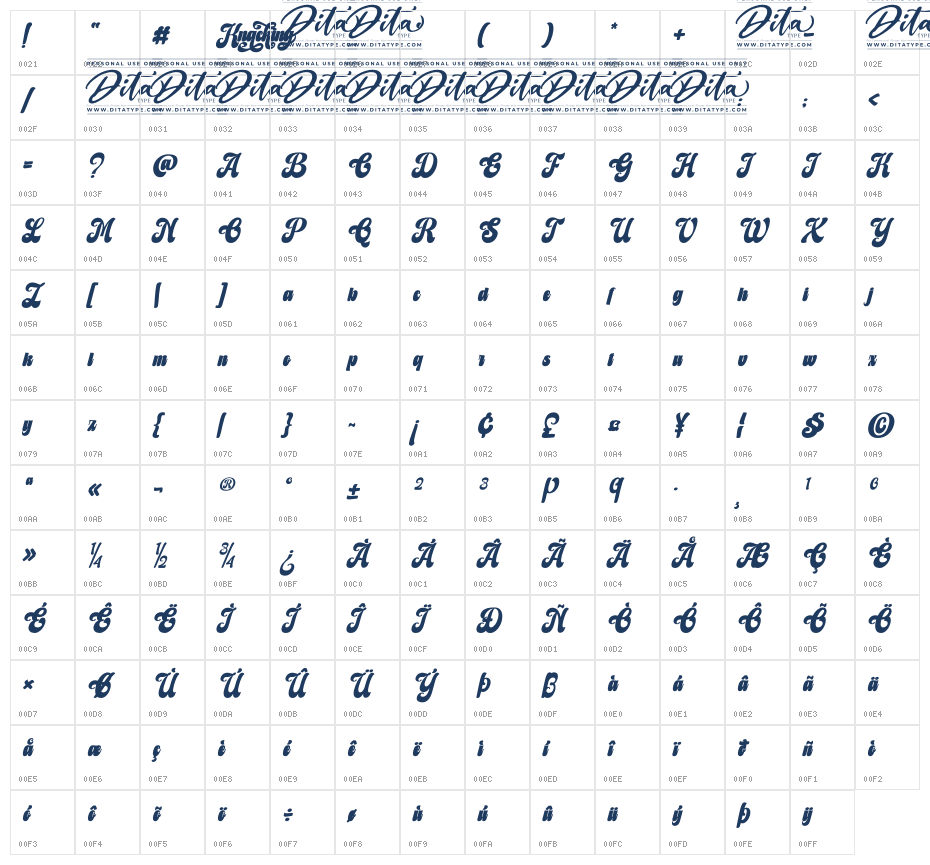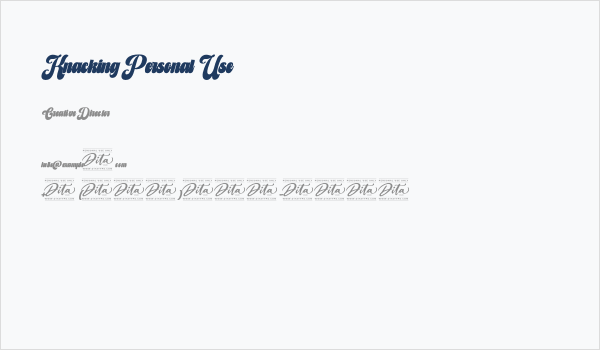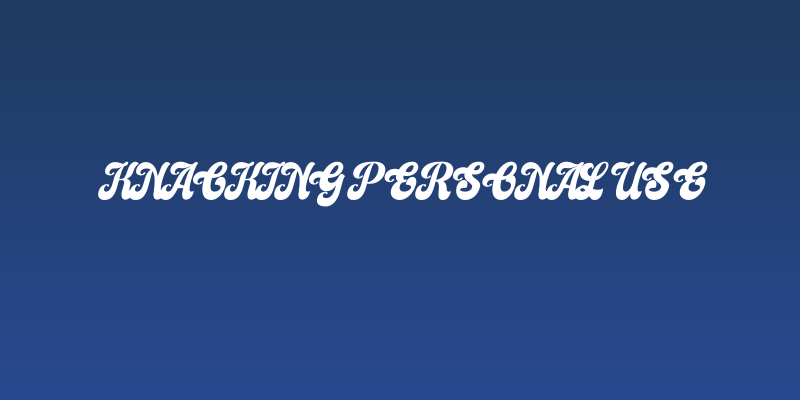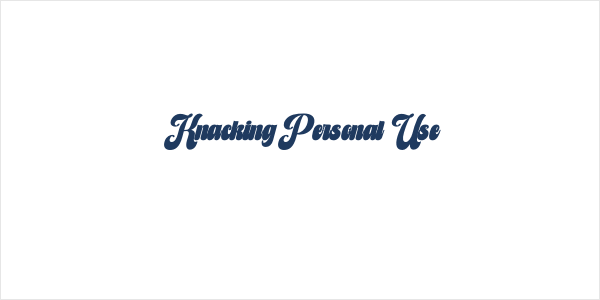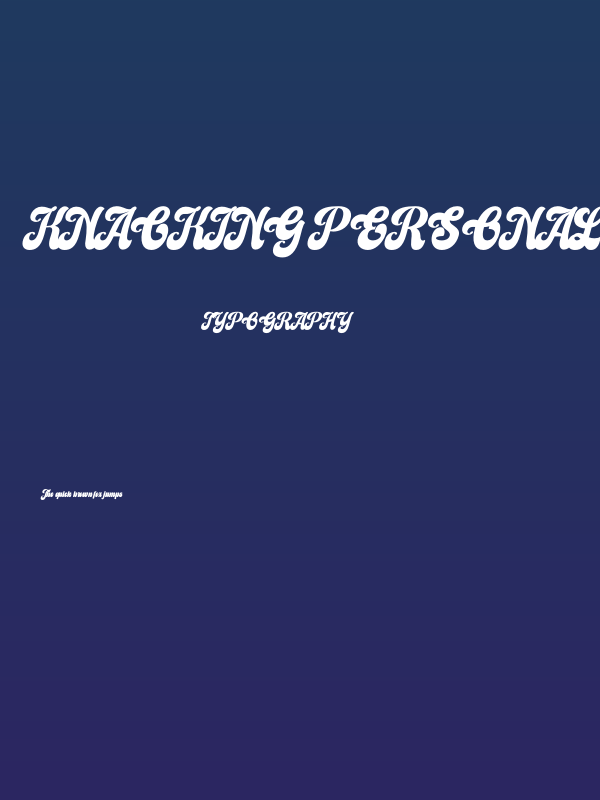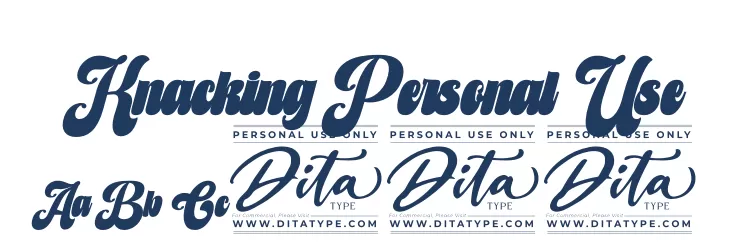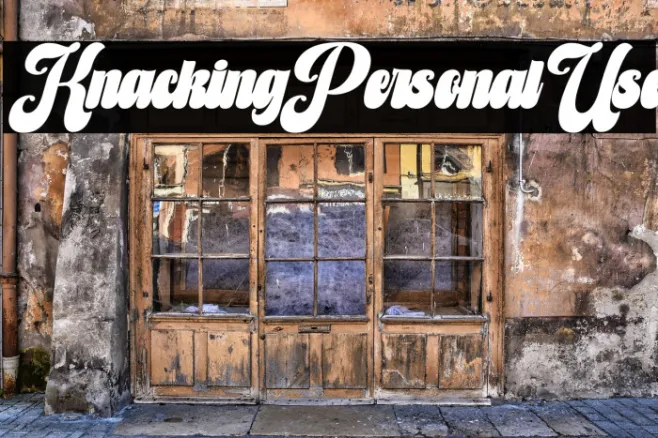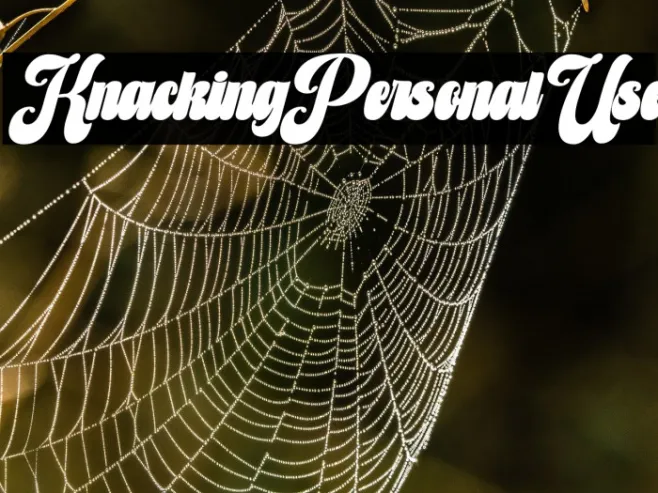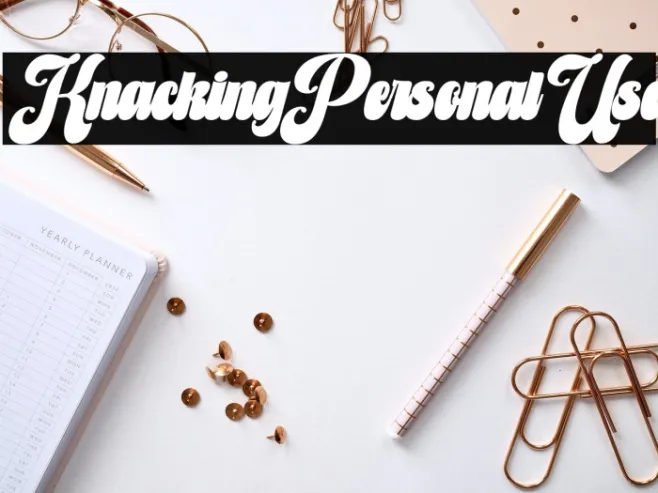
Knacking Personal Use Font
Knacking Personal Use Description
A bold, cursive script font with a vintage, decorative style featuring smooth, flowing strokes and a slightly playful appearance.
| Overall Style | Vintage, Decorative |
| Use Case | Headlines, Logos, Invitations, Branding |